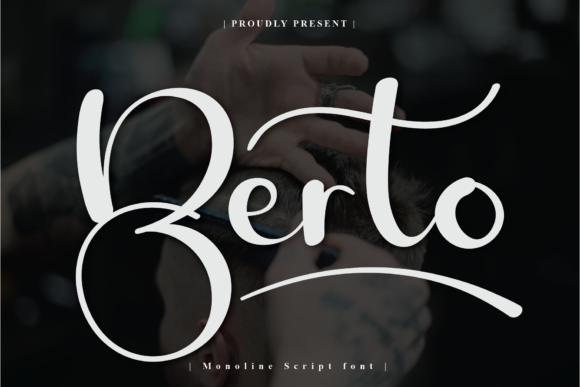
Elevate your design projects to new heights with Berto Font, a stunning round lettered and flowing script font that will transform your creative visions into captivating masterpieces. Experience the art of typography with this enchanting font family, perfect for adding a touch of elegance and sophistication to your designs.
With Berto Font, your words will come alive, carrying a sense of fluidity and grace. Its captivating curves and striking letterforms create a visual symphony, adding depth and character to your projects. Unleash your creativity and let Berto Font guide you towards typographic excellence.
Whether you're designing logos, branding materials, social media graphics, or any other creative endeavor, Berto Font will elevate your work to the next level. Its versatility knows no bounds, allowing you to explore a wide range of design styles and themes.
Don't settle for ordinary fonts that fail to make an impact. Embrace the beauty of Berto Font and unlock a world of endless creative possibilities. Let your designs flourish and captivate your audience with this extraordinary script font.
Experience the transformative power of Berto Font and witness the magic it brings to your creations. Embrace the art of typography and embark on a journey of design excellence.